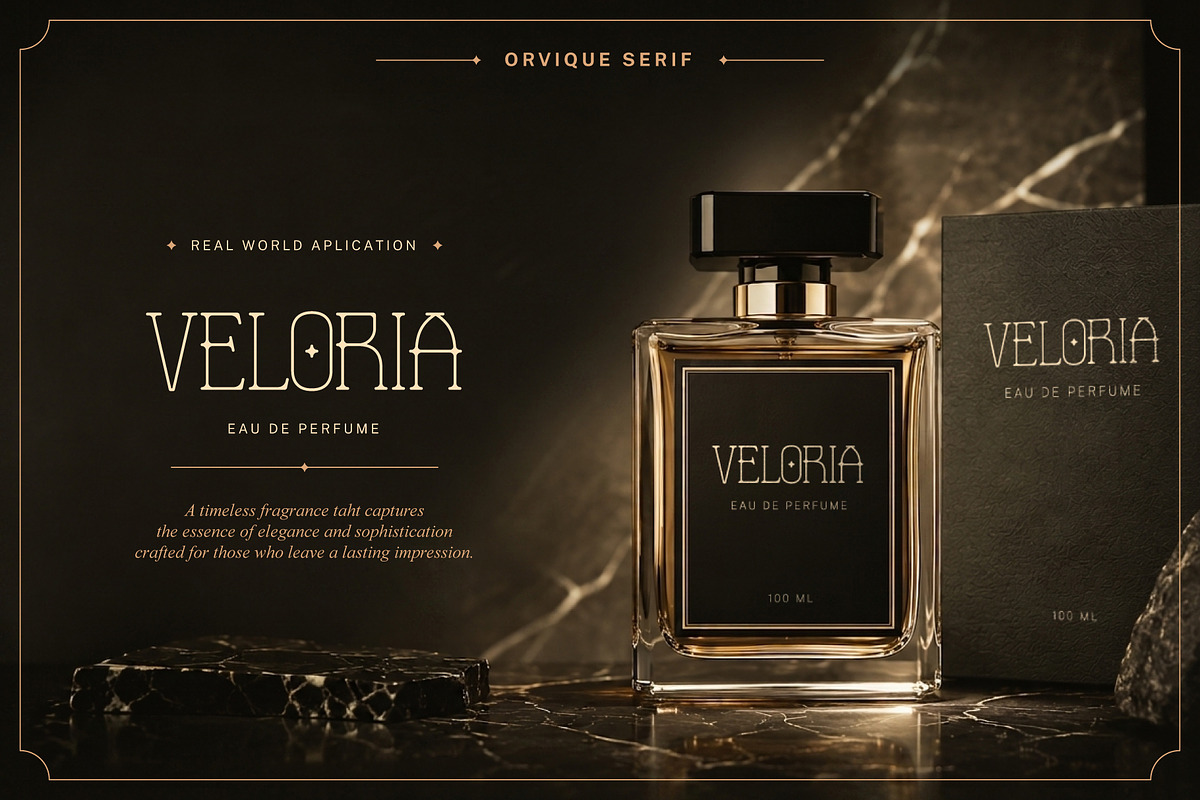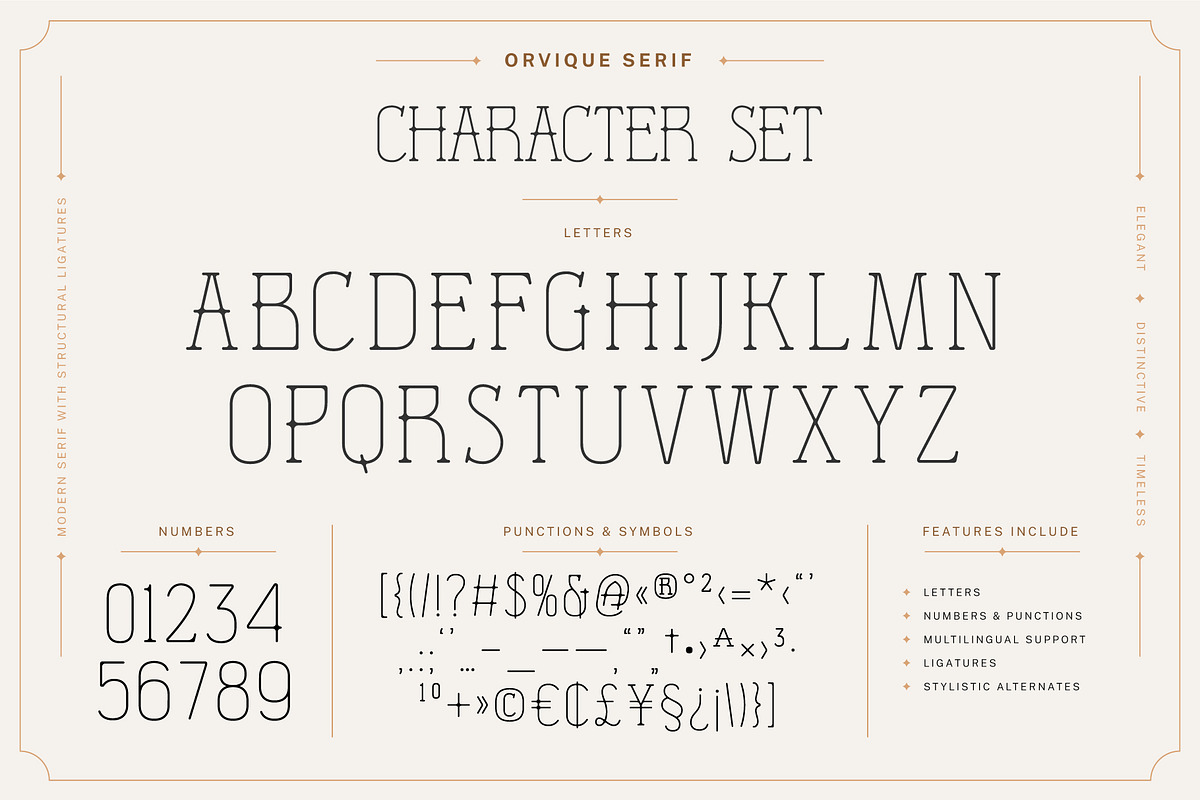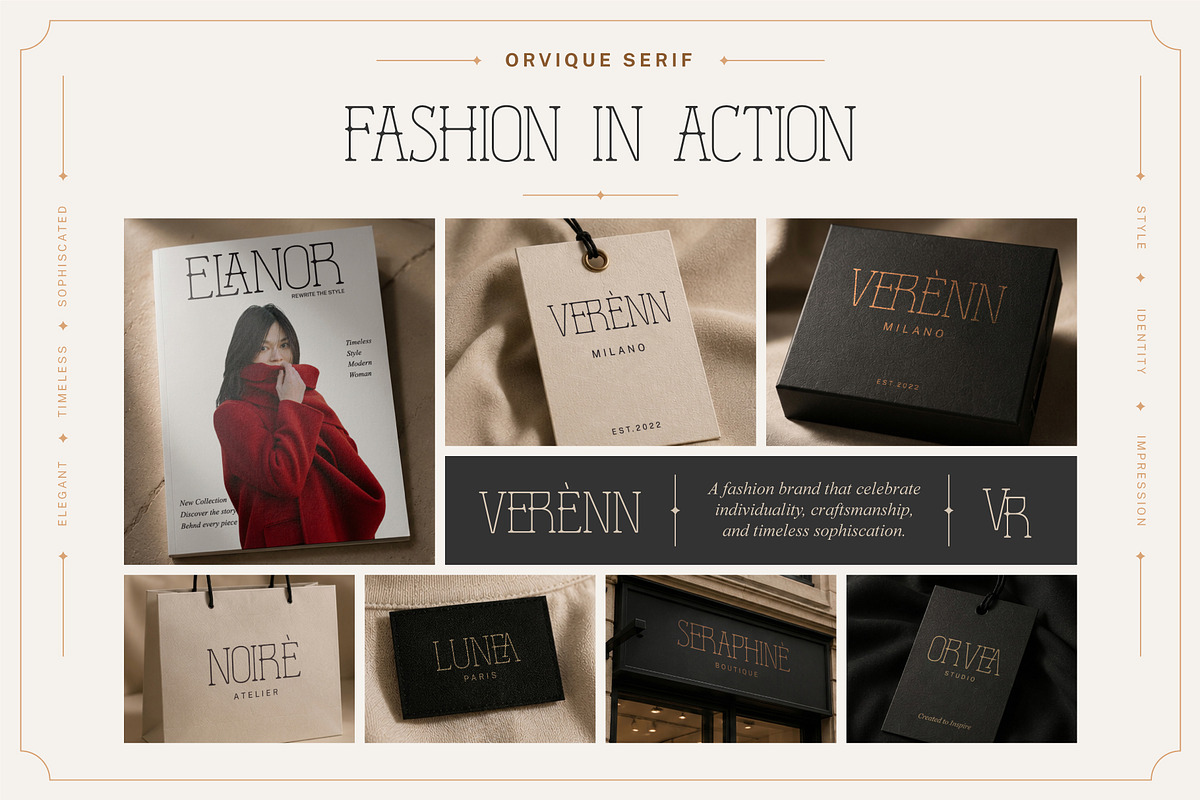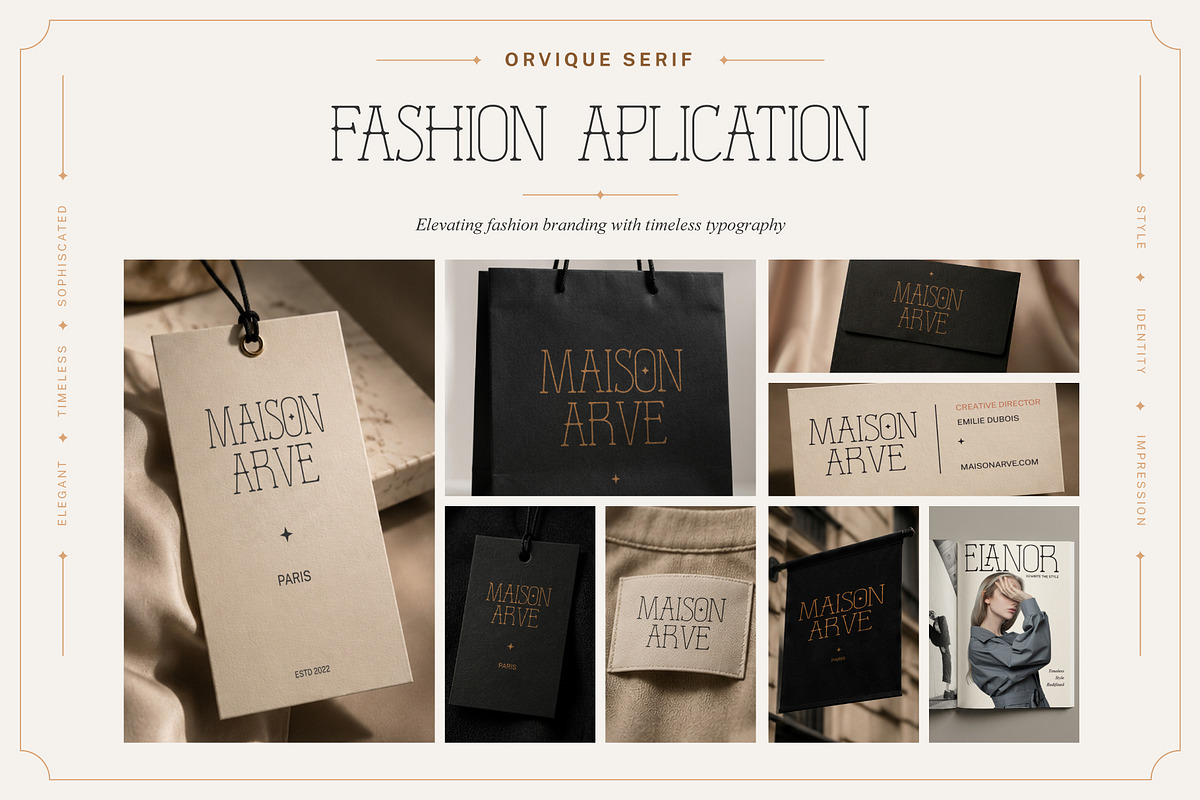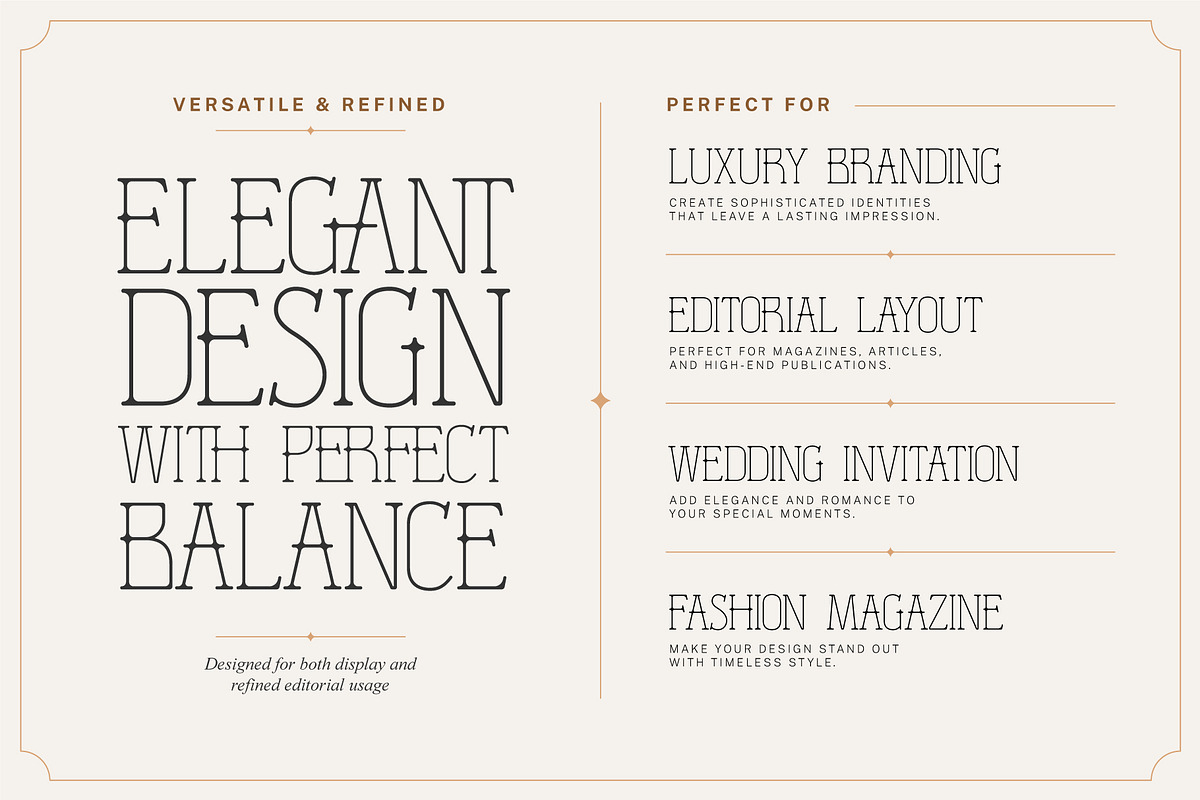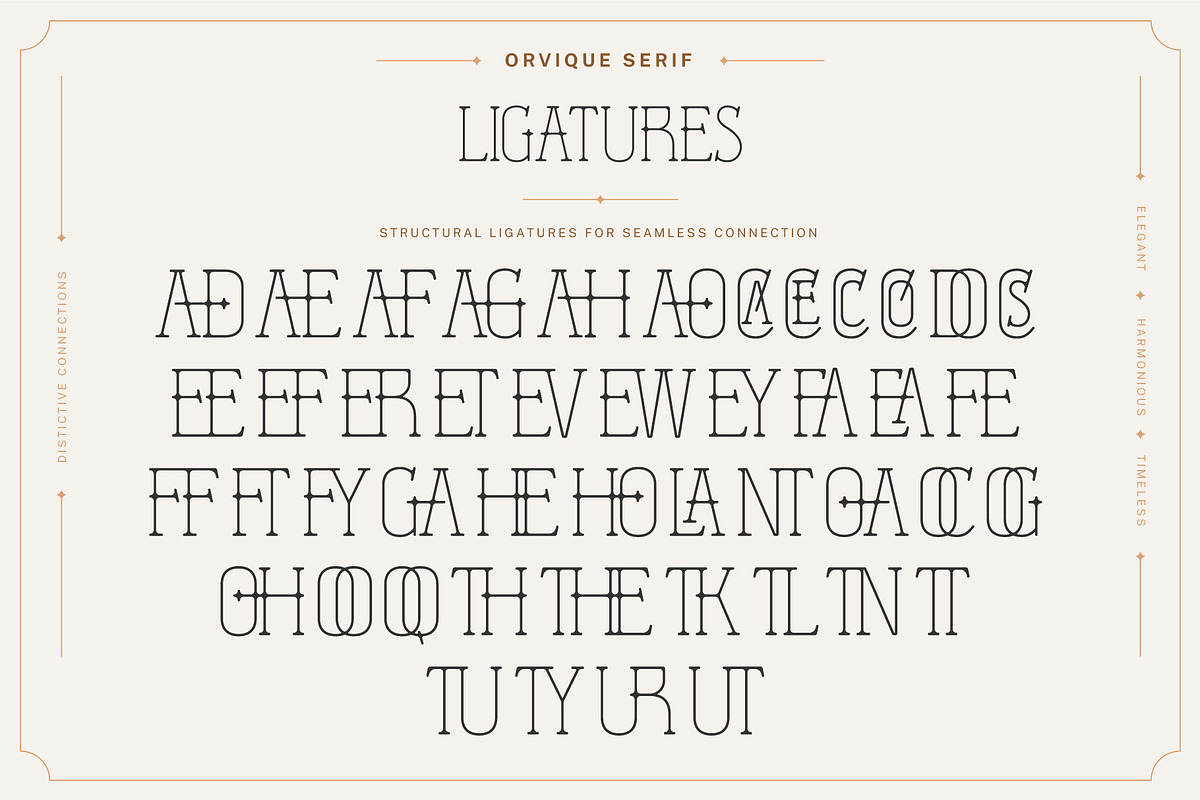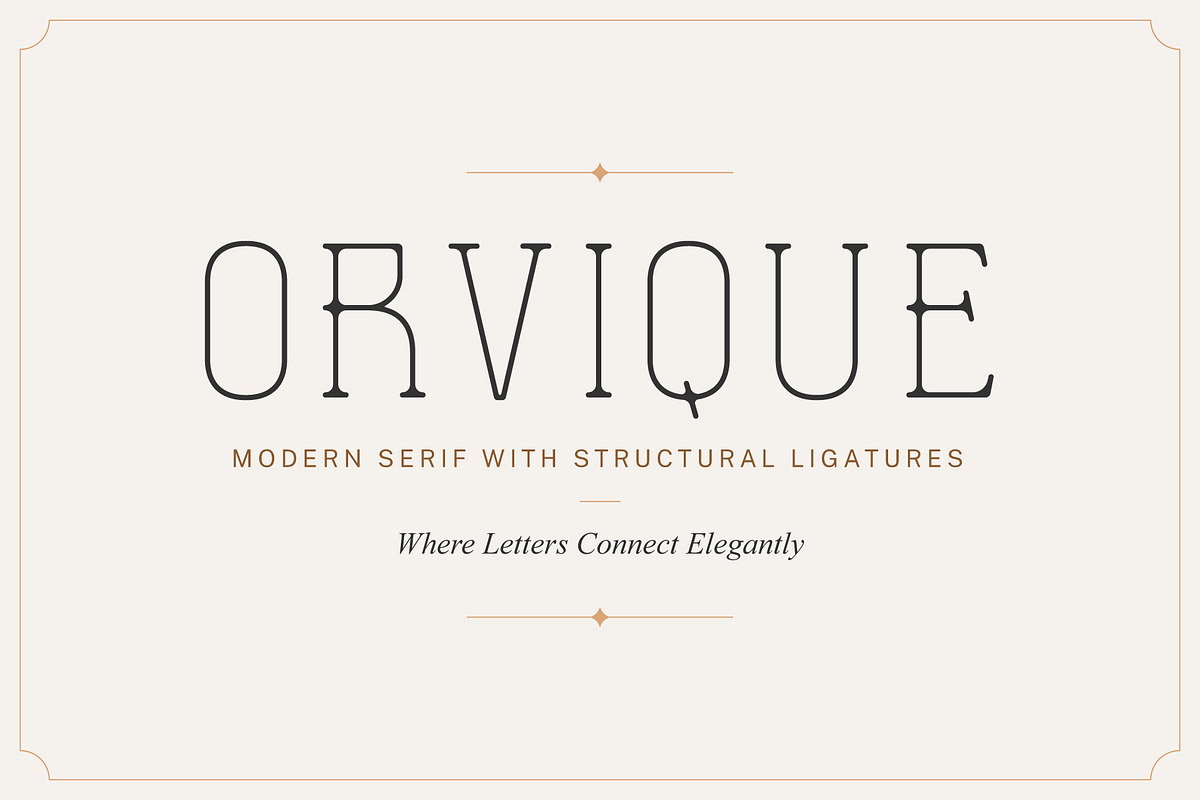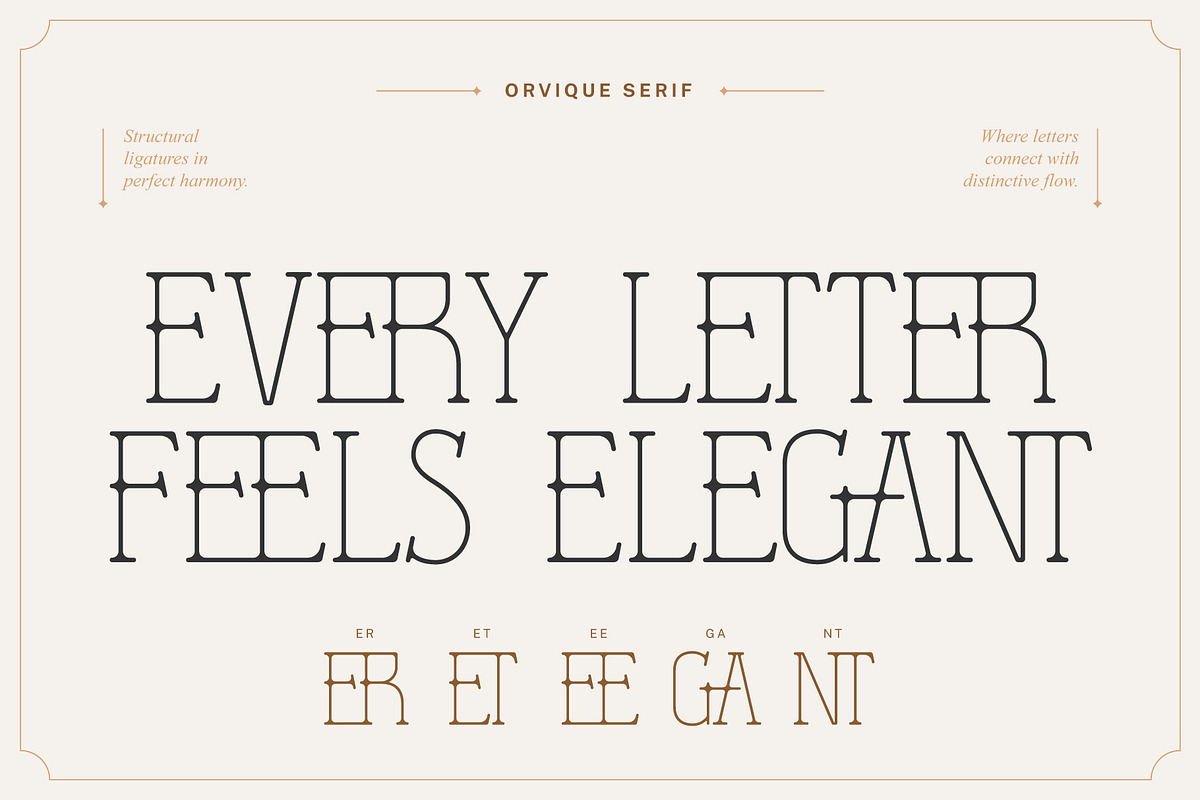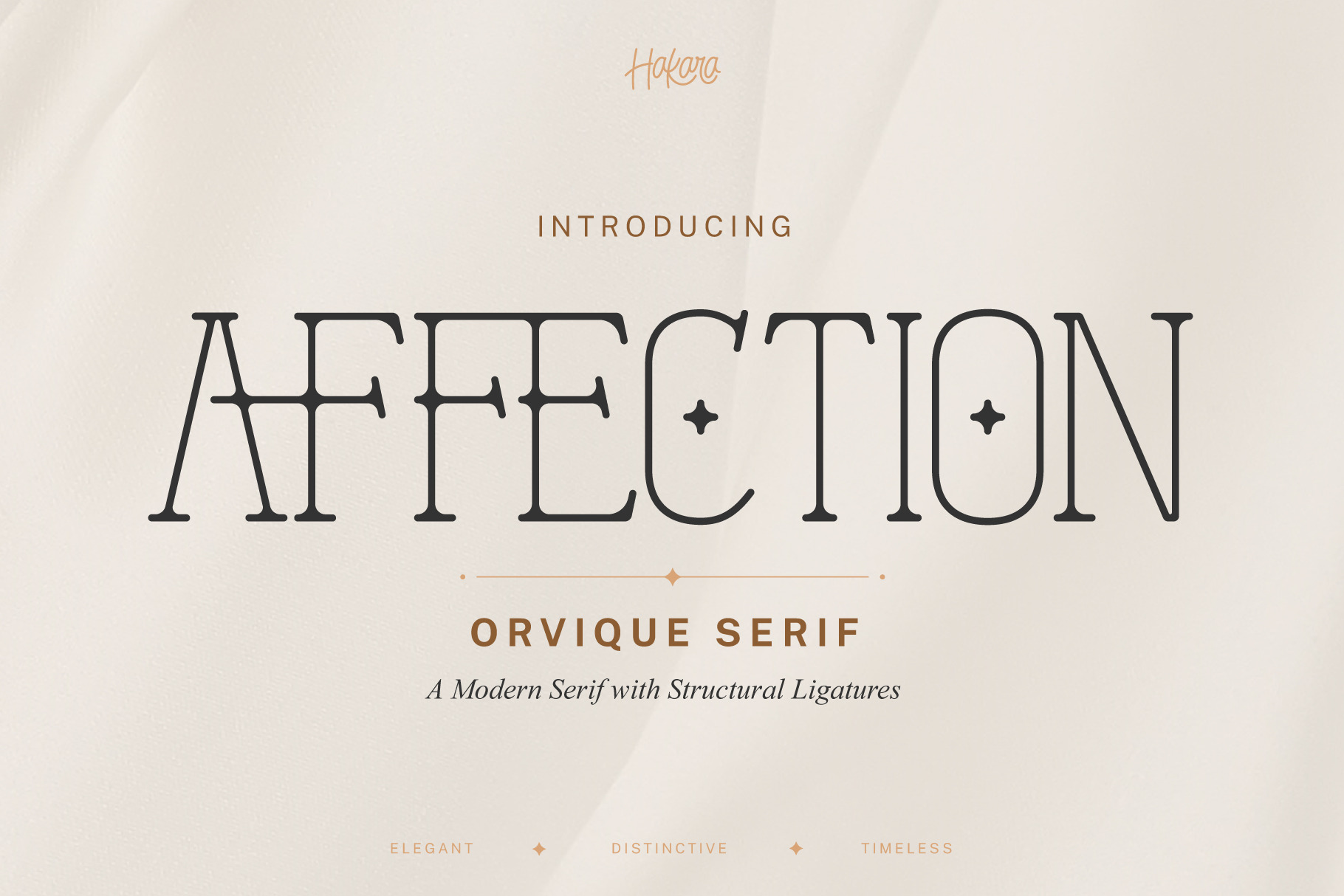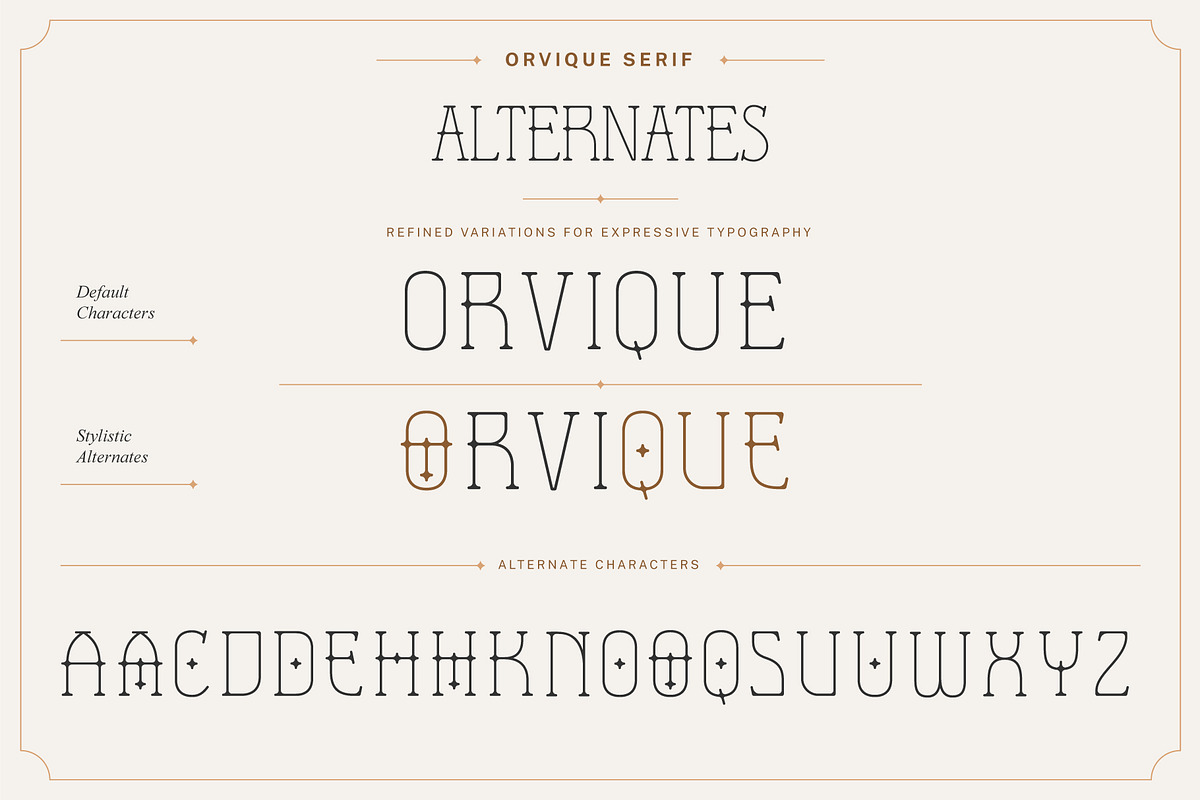
Orvique Serif – Elegant Luxury Font
Orvique Serif is a refined modern serif typeface meticulously crafted for high-end branding, fashion editorials, and sophisticated visual identities. With its graceful curves, distinctive ligatures, and carefully balanced contrast, it offers a timeless aesthetic that elevates any design. This typeface is designed for discerning designers and brands who seek more than just readability; it establishes a strong visual voice that communicates elegance, exclusivity, and premium quality. Ideal for luxury branding, perfume packaging, fashion campaigns, magazine layouts, logos, and social media visuals, Orvique Serif is the perfect choice for creating impactful and memorable designs. Ideal for designers, creatives, and entrepreneurs building premium brand visuals.
Elegant modern serif design
Unique ligatures & stylistic alternates
High contrast letterforms for luxury feel
Clean and versatile for multiple applications
Carefully crafted spacing & proportions
Uppercase & lowercase letters
Stylistic alternates
OpenType features
Fashion brands
Luxury logos
Editorial design
Beauty & cosmetic branding
Perfume packaging
Social media templates
Wedding & premium stationery